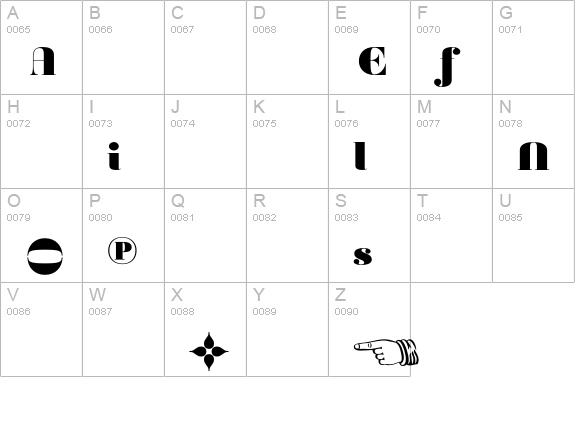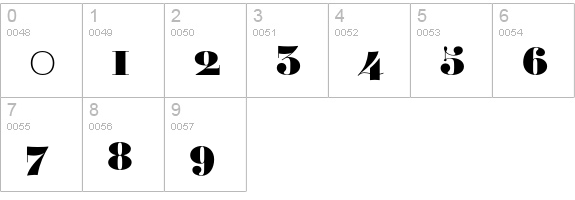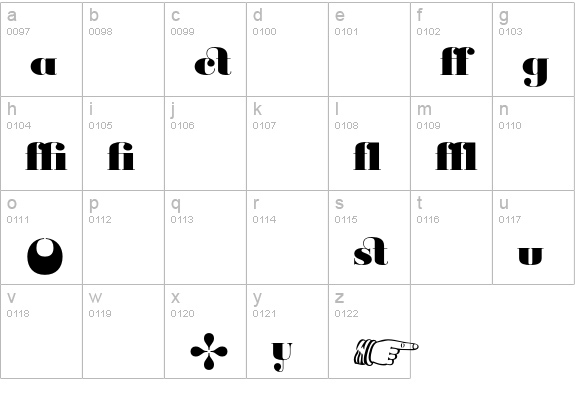
Ambroise Alternates Black Font Details
Ambroise Alternates Black is a maximum-weight, dramatic variant in the Ambroise typeface family \xE2\x80\x94 well suited to maximum-impact headlines, posters, and packaging.
Ambroise Alternates Black is a bold and striking display font that exudes elegance and sophistication. Its strong and commanding presence makes it ideal for headlines, posters, and branding projects that require a touch of luxury. The sharp serifs and clean lines of this typeface give it a modern yet timeless appeal. What sets Ambroise Alternates Black apart is its versatility and adaptability to various design contexts. Whether used in print or digital media, this font demands attention and makes a statement. The heavy weight of the characters adds a sense of authority and power to any text it is applied to. One of the best features of Ambroise Alternates Black is that it is available for free download at FontsMarket.com. This means that designers and creatives can easily access this premium font without any cost, making it a valuable addition to their typographic toolkit. With its exceptional design and accessibility, Ambroise Alternates Black is a must-have for anyone looking to elevate their designs with a touch of sophistication and style.